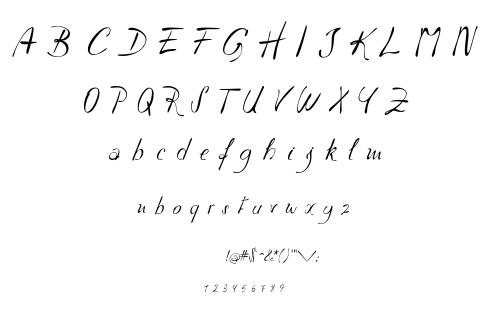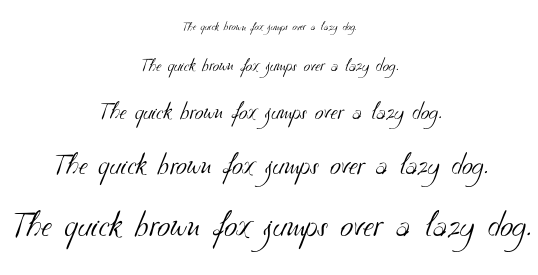
Based on the calligraphy of Czech-Australian photographer Sonia Havlova Makac. If you want to know the work of the woman whose calligraphy inspirated the font Havlova, see her site: http://www.bohemiansecret.net.au